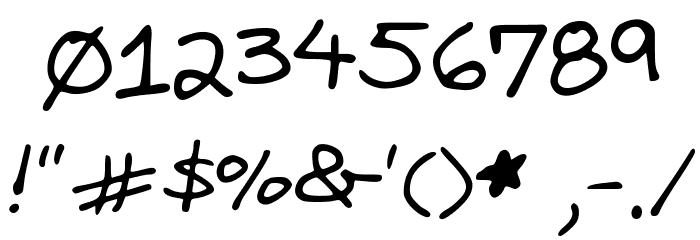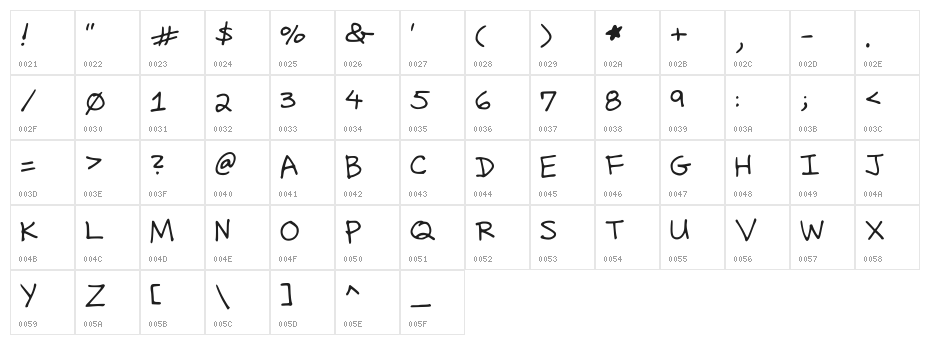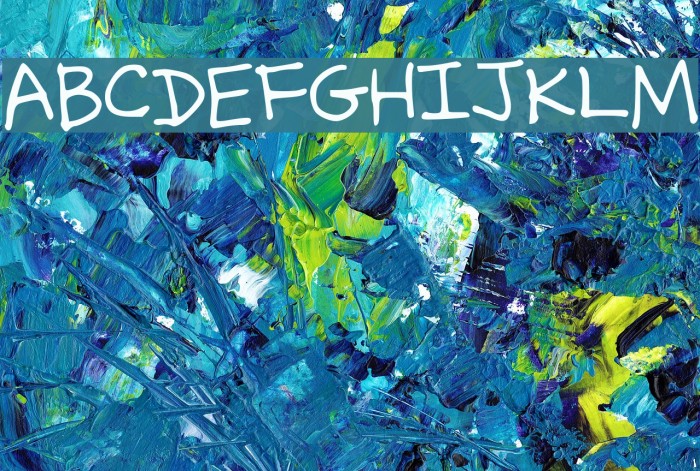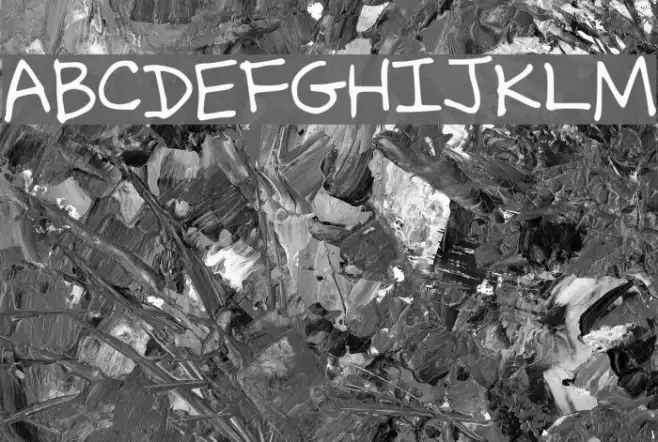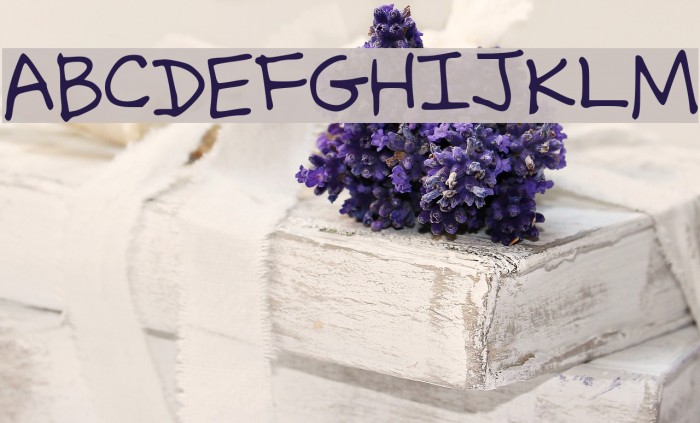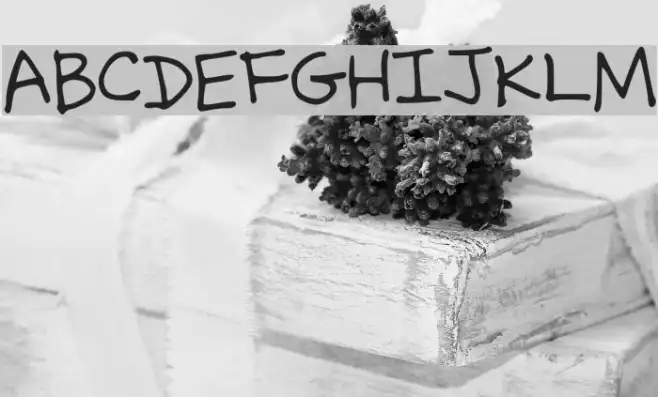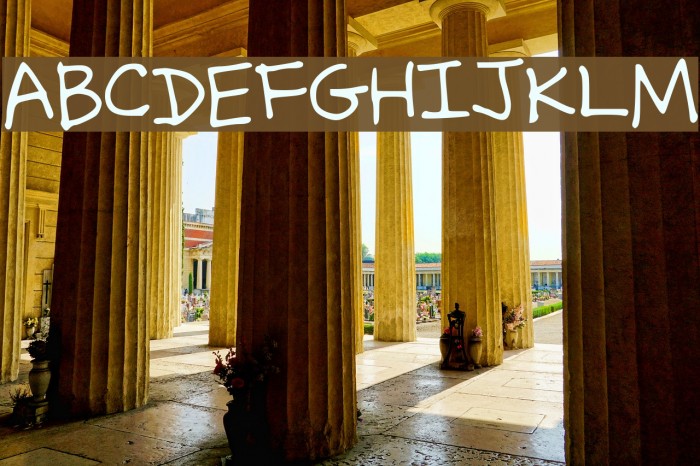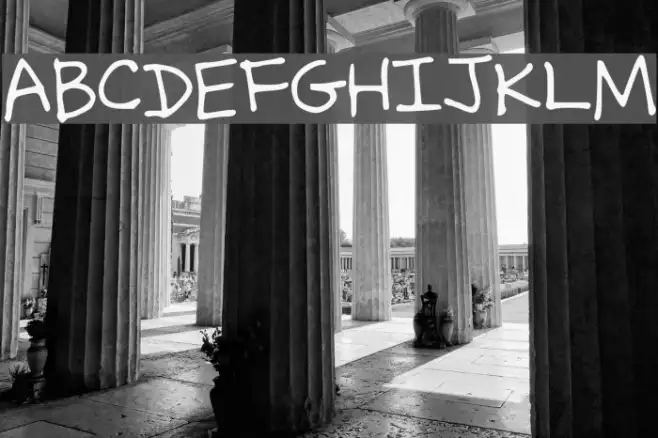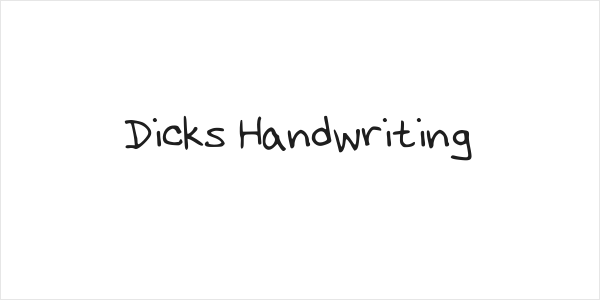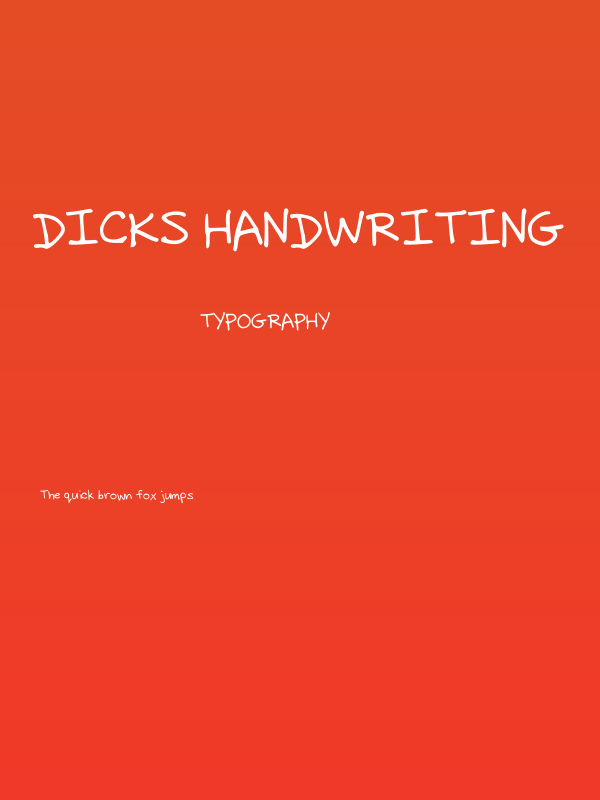
Dicks Handwriting Font
Dicks Handwriting Description
This font exudes a casual and personal touch, reminiscent of authentic handwriting. The characters are slightly irregular, adding to the charm and warmth of the style. Each letter is distinct, with rounded edges and a playful flow, making it approachable and friendly. The uppercase letters maintain a consistent height, while the lowercase letters vary slightly, enhancing the handwritten feel. Numbers and special characters follow the same informal style, ensuring a cohesive look across all text. This font is perfect for projects that require a personal or informal tone, such as invitations, greeting cards, or personal branding.
| Use Case | Headlines, Informal text, Personal projects |
| Proposed Projects | Ideal for invitations, greeting cards, personal branding, and informal communications. |